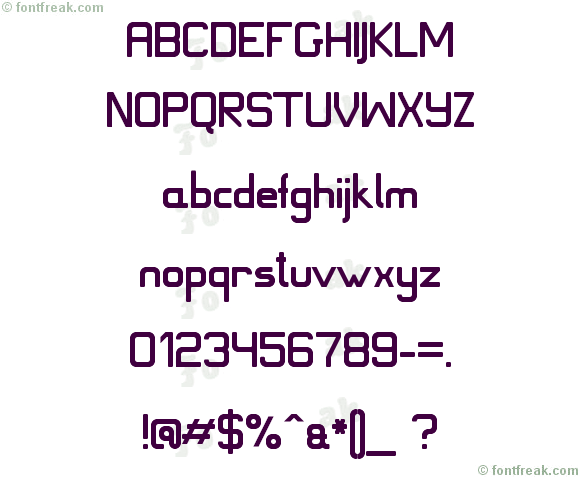
JD Ice Regular
JD Ice Regular by Jecko Development is a striking display font that combines modern aesthetics with a playful flair. This sans-serif typeface stands out due to its unique character shapes and balanced proportions, making it suitable for a variety of creative projects. The font showcases a medium stroke weight, ensuring readability while maintaining a distinct personality. The even spacing between characters enhances its legibility, while subtle decorative elements add a contemporary touch without overwhelming the overall design.
This versatile font is an excellent choice for a range of applications. JD Ice Regular is perfect for making bold statements on movie posters, where it can capture the audience's attention with its eye-catching design. It also serves well in creating engaging restaurant menus that draw diners in with its modern yet approachable look. Additionally, this font can elevate wedding invitations, lending a contemporary elegance that resonates with couples looking for something unique. Content creators will find JD Ice Regular to be an effective choice for social media graphics, where its distinctiveness can help brands stand out in a crowded digital space.
In a market saturated with fonts, JD Ice Regular stands out for its ability to blend modern design with functional versatility. Whether you're crafting promotional material or personal designs, this font offers a unique aesthetic that can elevate your work. Don't miss the opportunity to explore the JD Ice Regular font free download and unleash its potential in your next project.